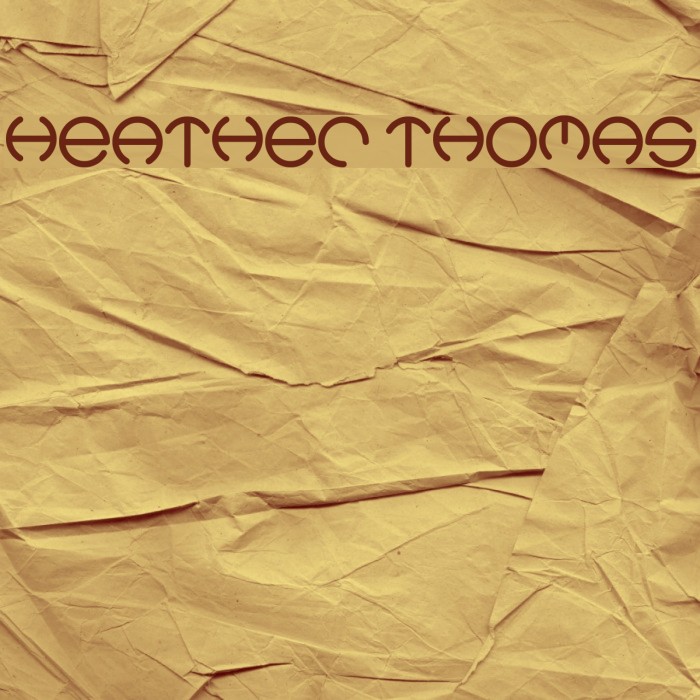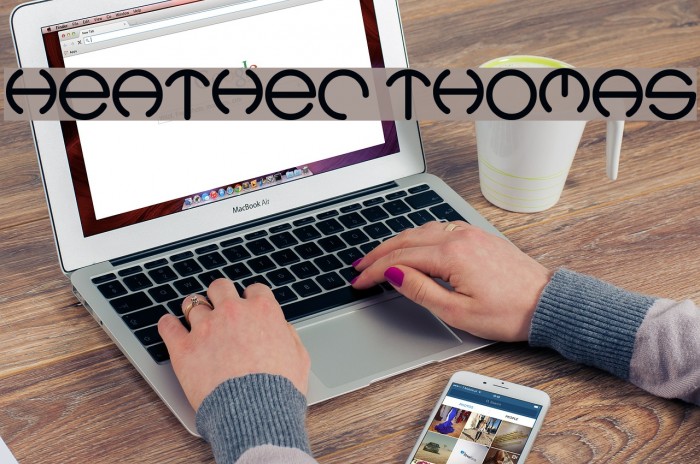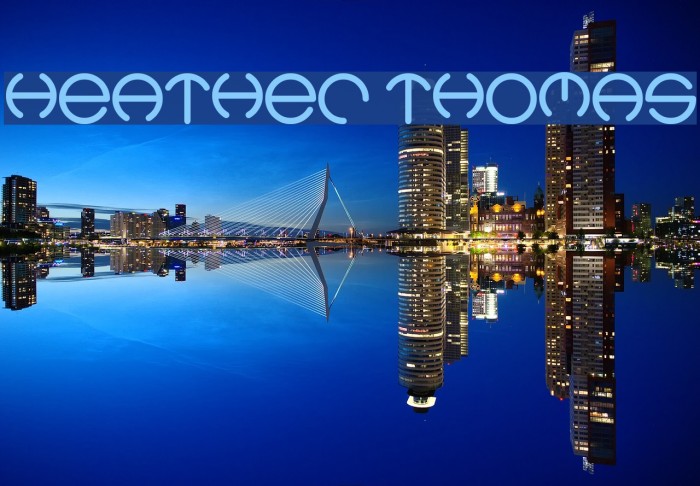
Heather Thomas Font
This font features a unique and futuristic design with a geometric and circular motif. Each character is crafted with a combination of curves and straight lines, creating a sense of movement and modernity. The letters are evenly spaced, contributing to a clean and organized appearance. The font's style is highly decorative, making it ideal for creative projects that require a distinctive and eye-catching typeface. Its bold strokes and consistent line thickness provide a uniform look across all characters, enhancing readability while maintaining its artistic flair.
A futuristic, geometric font with circular motifs and bold strokes.
- Proposed Projects: Ideal for sci-fi themed designs, modern branding, posters, and digital artwork.
- Overall Style: Futuristic